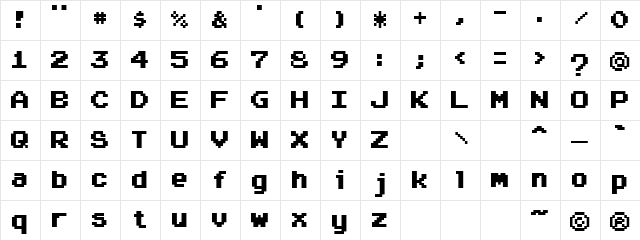
Arcadepix Regular
Design Context for Arcadepix Typeface
Arcadepix is a composed and adaptable typeface that performs quietly and consistently across a wide range of design contexts.